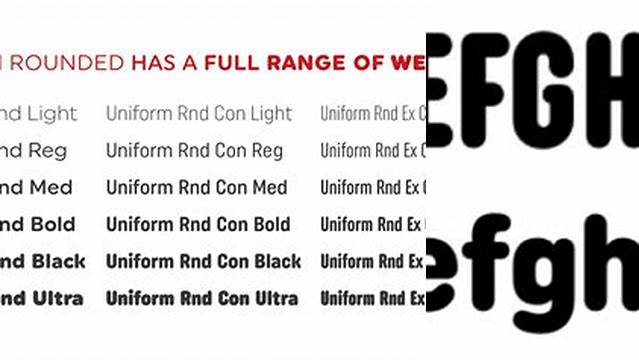
Uniform Rounded Black Free Font Guide
Hey guys, let's dive into the world of typography and explore a fantastic font called Uniform Rounded Black. This font is a real gem, offering a sleek, modern aesthetic that's perfect for a variety of design projects. And the best part? It's free! We're going to take a close look at what makes Uniform Rounded Black special, where you can find it, and how you can use it to elevate your designs.
What Makes Uniform Rounded Black Font Stand Out?
So, what's the buzz about Uniform Rounded Black? Well, first off, it's all about that clean, contemporary look. The rounded terminals and consistent stroke weight give it a friendly yet professional vibe. It's the kind of font that can instantly make your text look polished and inviting. It's incredibly versatile. Whether you're working on a website, creating social media graphics, designing a logo, or even putting together a presentation, this font can work wonders. One of the key characteristics is its excellent readability, even at smaller sizes. This makes it a great choice for body text as well as headlines. The font's neutral style means it won't clash with your other design elements. This is super important because it allows the focus to stay on your message. Also, it offers a great range of characters, including numbers and punctuation. This ensures you have all the tools you need to communicate effectively. Its free availability is probably its biggest draw. You can download and use it without spending a dime, making it accessible to everyone from seasoned designers to hobbyists. It also typically comes with a generous license, which is usually fine for both personal and commercial projects. Let's be honest, the fact that it is a rounded font has a unique visual appeal. The softer edges create a sense of approachability, making it a great choice for brands that want to project a friendly image. The design of Uniform Rounded Black strikes a perfect balance. It is both modern and timeless. It is the kind of font that will still look fresh and relevant years from now. This font really is a great way to level up your design. The simple elegance of Uniform Rounded Black makes it suitable for a wide range of projects. This is important to consider, because it helps you avoid using multiple fonts for different projects. All these factors come together to create a font that's not only visually appealing but also highly functional and user-friendly. It's no wonder it's a popular choice for designers all over the world. When we use it, it means our message is clear and easy to read. This is great for any project because the readability will help your target audience to connect with the content. The designer really thought about every detail, making sure it's beautiful and easy to understand.
How to Use Uniform Rounded Black Font in Your Designs
Alright, you've got your font installed, and you're itching to get started. Now comes the fun part: using Uniform Rounded Black to bring your designs to life! This font's versatility means you can use it in tons of different ways. For headlines and titles, it will make your headlines stand out while maintaining a sense of modernity. It is really easy to read and looks professional. For body text, if the design requires a lot of text, consider pairing it with a more traditional font for body text. It can provide a pleasing contrast. Using it in your logos and branding is another option. Because of its clean lines, it can make a logo look modern. This is useful for companies that need to project professionalism and modernity. It works great for creating social media graphics. Because it's easily readable, your message will stand out on platforms like Instagram and Facebook. It is also useful for website design, by choosing Uniform Rounded Black for navigation menus, headings, and call-to-action buttons. This will create a cohesive and user-friendly interface. When choosing colors for your designs, keep in mind that Uniform Rounded Black pairs well with a wide range of colors. Experiment with different color combinations to find what works best for your project. Consider the overall tone and message you want to convey. Using it in print materials also works, so you can include it in brochures, flyers, and business cards. Its clean design makes it very effective. To maximize the impact, make sure you experiment with different font sizes and weights. This is crucial to bring out the full potential of your design. Combine Uniform Rounded Black with images and other design elements to create visually appealing compositions. Don't be afraid to play around with the font. Try different alignments, spacing, and effects to see what looks best. By experimenting with different approaches, you can make the font work for your project. It's really important to ensure your designs are accessible to everyone. The font's clear and legible design helps ensure your text is easy to read, even for people with visual impairments. Always keep in mind that the context of your design matters. When choosing sizes, the size of your target audience is important. A good design should also include a good layout. With a good layout, the font will be easier to read.
Tips and Best Practices for Using the Font
Okay, let's talk about some best practices to make the most of your experience. First off, always consider the context of your design. This is really important because different projects will require different approaches. Make sure you are matching the font to your overall design aesthetic. For headlines, Uniform Rounded Black shines at larger sizes, so make sure your headlines are visually striking. For body text, stick to a comfortable size. The key here is readability. For headings and subheadings, use a different font weight to create visual hierarchy. This will guide the reader's eye. Experiment with different weights. Varying the weights of the font can create visual interest and emphasize important information. Pay attention to the spacing. Adjust the letter spacing (kerning) and line spacing (leading) to enhance readability. Avoid overusing the font. While it's a great font, using it for everything can make your design look cluttered. Pairing it with other fonts can create a more dynamic and engaging design. Choose complementary fonts that harmonize well with Uniform Rounded Black. Think about the overall mood you want to evoke. The font can contribute to the mood of your design. To create a cohesive look, consider the color scheme. Be mindful of accessibility. Make sure your text has enough contrast against the background to ensure readability. This is essential for everyone. Preview your design on different devices to see how it looks across platforms. This is really important to make sure that your design looks consistent on mobile, tablet, and desktop. Proofread your text carefully to catch any errors. Errors can distract from your design. It's essential to maintain consistency throughout your project. This helps create a professional and polished look. Experiment with different effects. You can add effects like shadows or outlines to enhance the visual appeal. This is where your creativity can really shine. Ultimately, the best way to get the hang of it is to play around and experiment. Have fun! Let your creativity flow. There are so many designs. There is no limit to how you can use it.
Conclusion: Embrace the Charm of Uniform Rounded Black
So, there you have it! Uniform Rounded Black is a fantastic font. It's a versatile, free, and visually appealing option that's perfect for a wide range of design projects. From its clean lines and rounded terminals to its excellent readability, this font has a lot to offer. By understanding its strengths and following the tips we've discussed, you can use Uniform Rounded Black to create stunning and effective designs. Whether you're a seasoned designer or just starting, this font is definitely worth exploring. So go ahead, download it, and start creating! I hope you've found this guide helpful. Happy designing, guys!